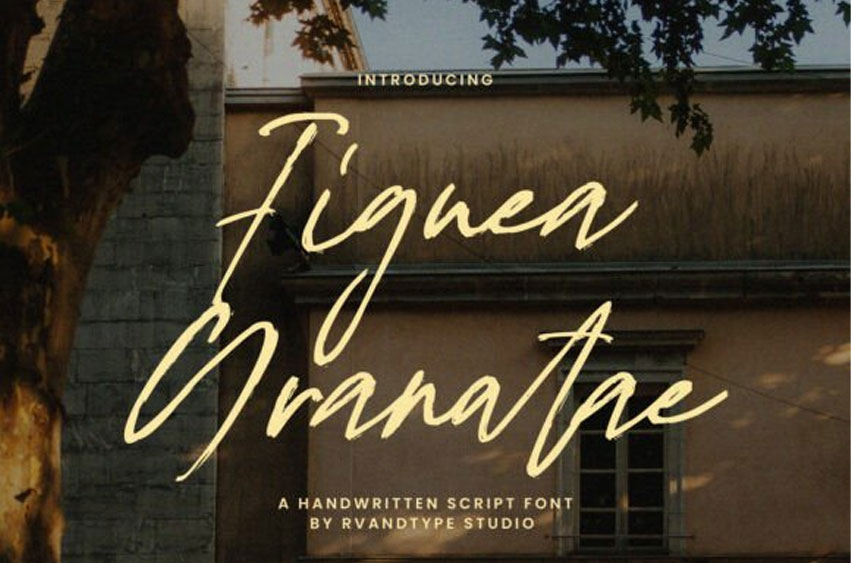
Figuea Granatae Font
Figuea Granatae Font. Immerse yourself in the exquisite allure of Figuea Granatae, a handwritten script font that perfectly blends the nostalgic grace of organic pen craft with a hint of contemporary sophistication. Every curve and stroke speaks volumes, exuding a genuine warmth, artistic flair, and an intimate personality, resulting in a font that breathes life into your projects.
Each character in the Figuea Granatae collection comes with its own unique set of slight irregularities, mirroring the captivating authenticity and spirited energy of human handwriting. This font promises to make your text truly come alive and resonate with its audience.